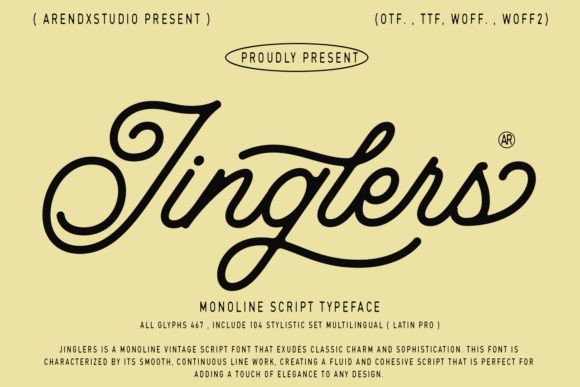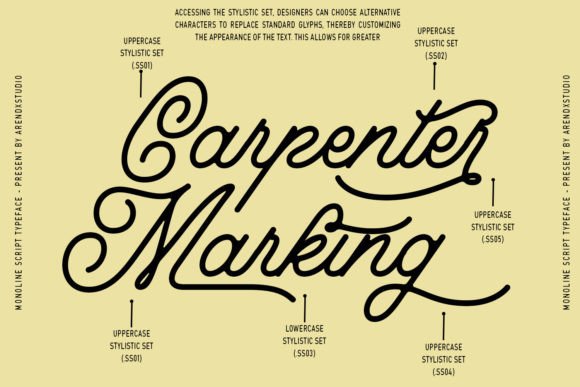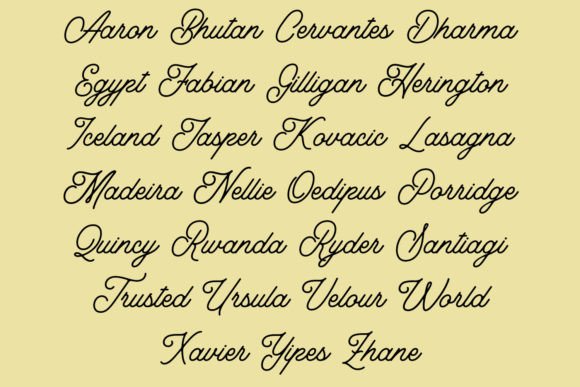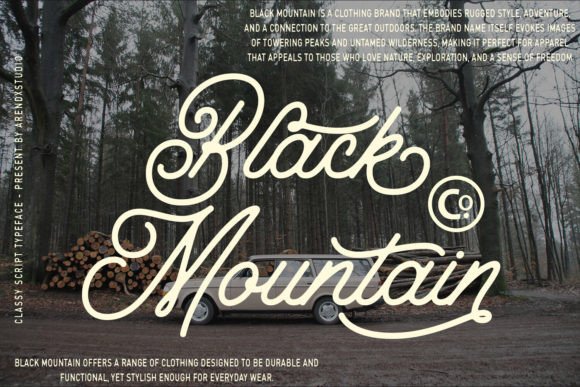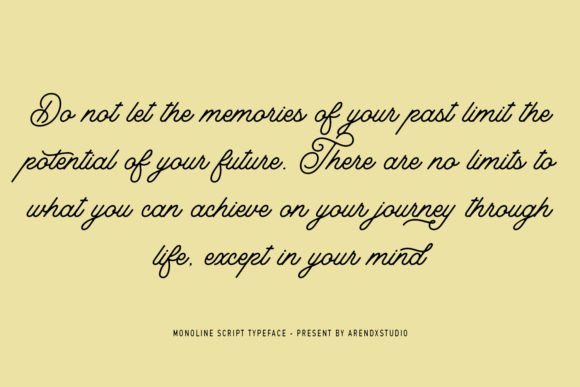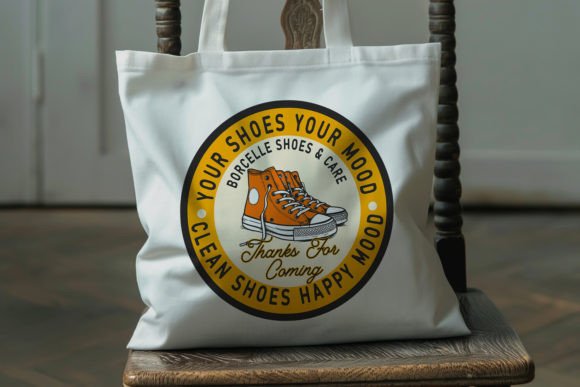
Introduction to Jinglers Font
As you sit at your desk, surrounded by scraps of paper, abandoned coffee cups, and the faint hum of your computer, the blank canvas in front of you stares back, waiting for inspiration to strike. It’s in these moments of creative uncertainty that you search for that one design resource that will elevate your project and transport your audience to a bygone era. For designers seeking to infuse their work with a touch of timeless elegance, look no further than the Jinglers Font.
A sophisticated Monoline Vintage Script Font, Jinglers elegantly blends the nostalgia of the past with the precision of modern design, making it an ideal choice for projects that require a vintage yet contemporary touch. Its seamless flow and clean, uniform look are just a few reasons why designers will fall in love with this high-quality font.
With Jinglers Font, you’ll have the creative freedom to craft a design that exudes sophistication and style, perfect for projects that demand a level of refinement and sophistication, whether it’s a free download for a personal project or a paid commission for a high-end client.
Key Features of Jinglers Font
- High-quality, professional design perfect for creative projects
- Features a unique, playful design that adds a touch of whimsy to any project
- Perfect for use in logos, branding materials, and other design elements where a creative, eye-catching font is needed
Honest Review: Jinglers Font
I recently came across the Jinglers Font, and I have to say, it’s a great addition to any designer’s toolkit. The font is perfect for creating a fun and playful vibe in your next project. It’s available for free download, making it an amazing resource for designers on a budget.
What works well is the font’s high quality and versatility. It’s ideal for use in a variety of creative projects, from posters and flyers to social media graphics and presentations. The font is also easily customizable, allowing you to tailor it to fit your specific design needs.
- ✨ Offers a wide range of style options, from casual to formal.
One of the limitations of the Jinglers Font is its limited availability in different font weights. However, this can be mitigated by combining the font with other design elements.
Overall, I’m impressed with the Jinglers Font. It’s a great resource for designers looking for a fun and playful font to add some personality to their work. With its high quality, versatility, and free download, it’s definitely worth checking out.
Tips for Getting the Most Out of Jinglers Font
Use Jinglers Font in creative projects such as logos, brochures, and social media graphics. Experiment with different font sizes and colors to add visual interest to your design. You can also use Jinglers Font in conjunction with other design elements, such as images and icons, to create a cohesive and engaging visual identity.